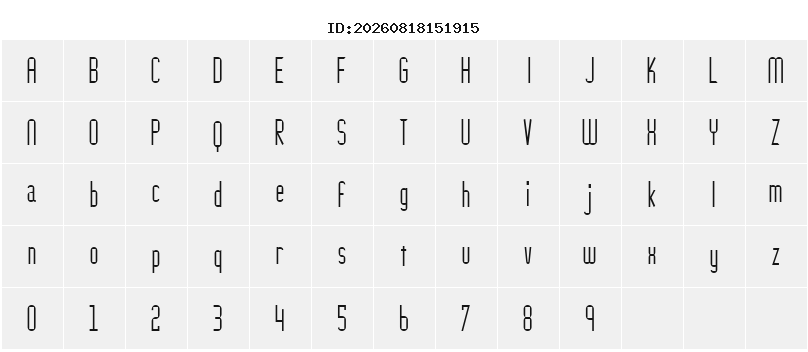
SlimpiSquares Preview
• Font Name: SlimpiSquares
• Full Font Name: SlimpiSquares
About SlimpiSquares.ttf
SlimpiSquares.ttf is a modern, elegant sans-serif font designed for ultimate readability and visual harmony. Perfect for branding, headlines, web design, and print materials.